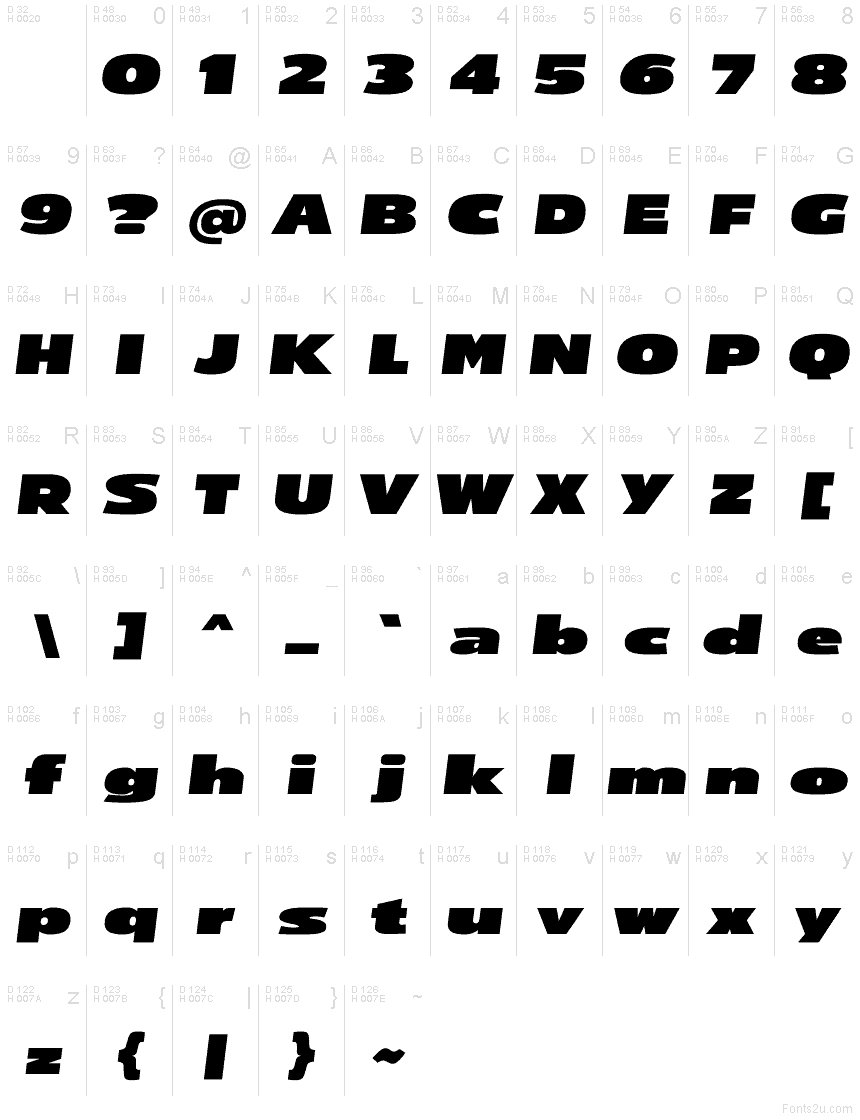
Drifter
Drifter font by 4RM Font is a bold, expanded sans serif that captures the spirit of speed and agility. Inspired by drifters, this typeface boasts smooth curves and an italic slant for a distinct presence with modern appeal. Its aggressive yet cool demeanor makes it ideal for graphic designs with a racing theme.
Use it in sports branding, car magazines, racing event posters, automotive logos, merchandise design, video game titles, dynamic website headers, athletic wear design, or adrenaline-fueled advertisements. This free fun offers versatility for impactful and energetic use cases.